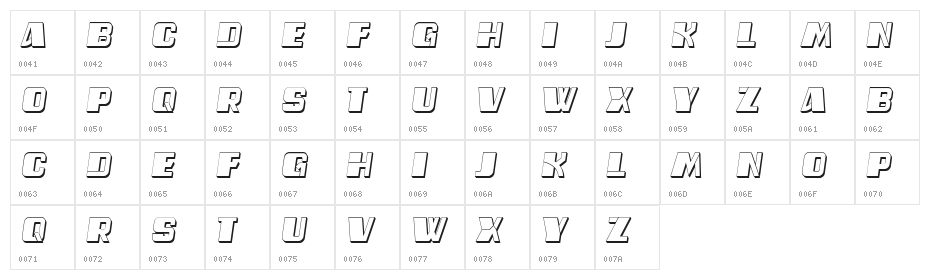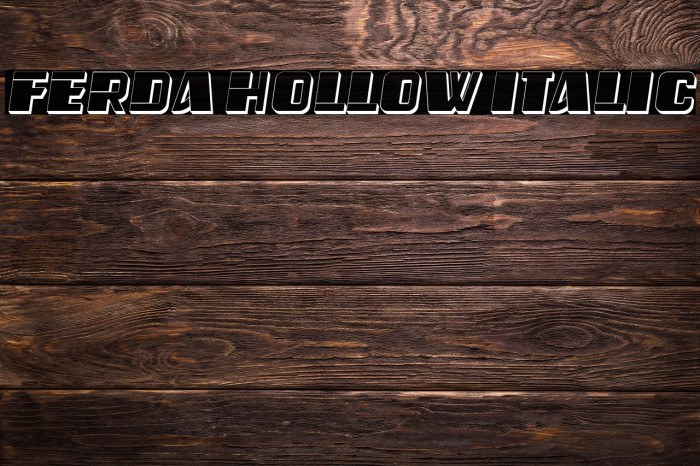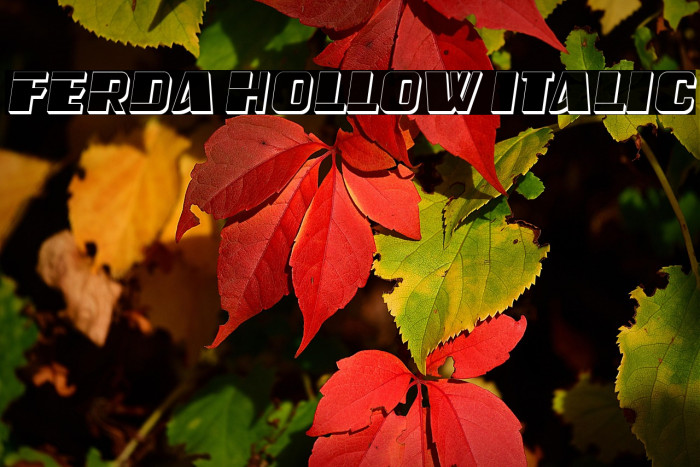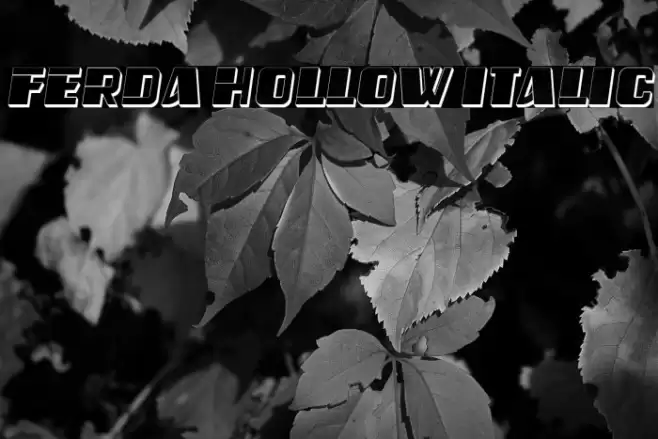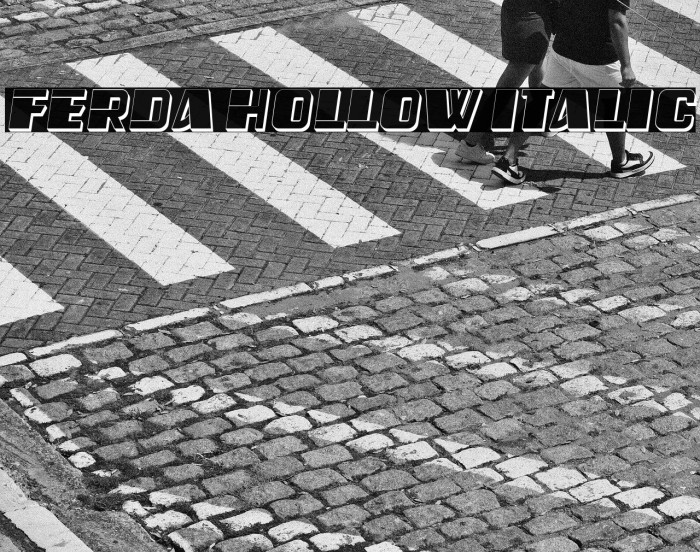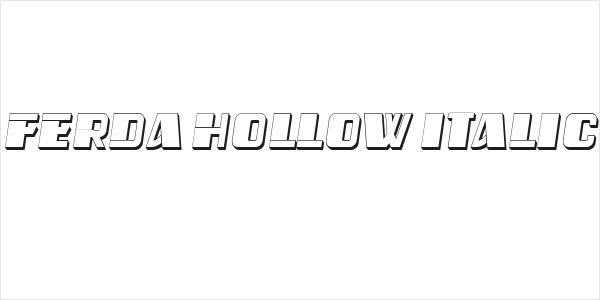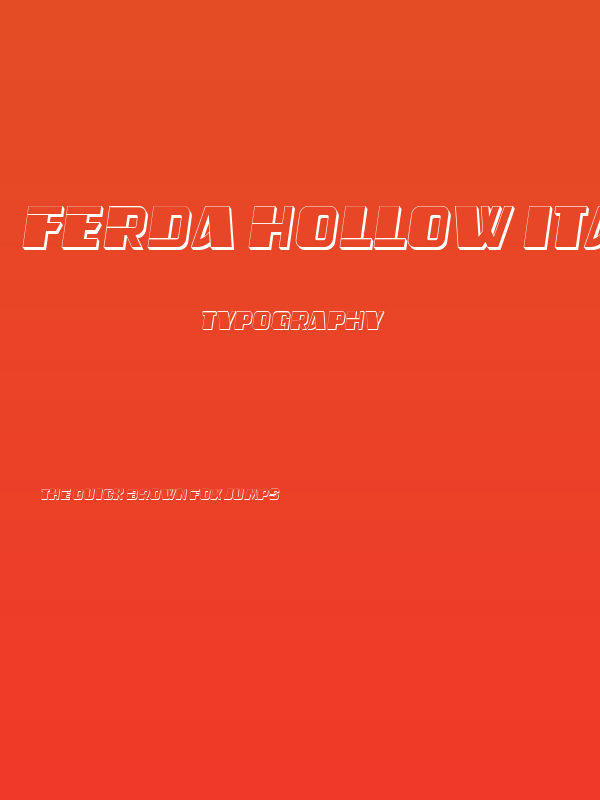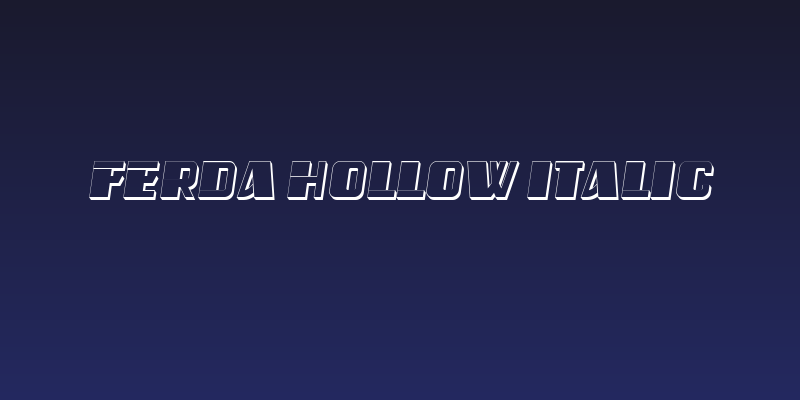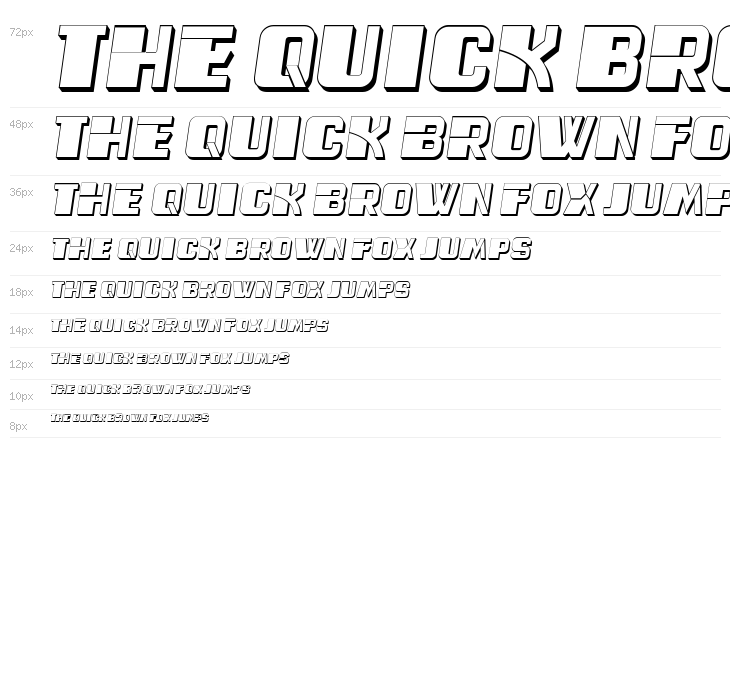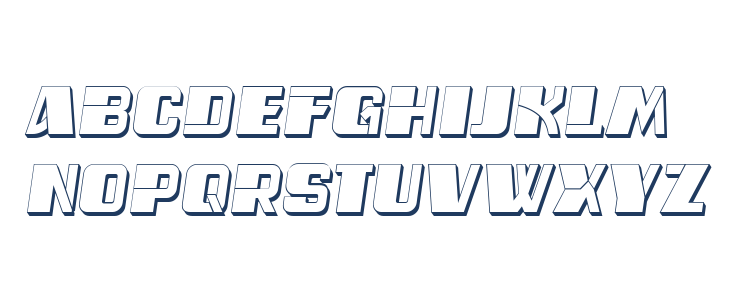
Ferda Hollow Italic Font
Ferda Hollow Italic Description
This font features a bold, hollow design with a distinct italic slant, giving it a dynamic and modern appearance. The characters are outlined, creating a striking visual effect that is both eye-catching and stylish. The uppercase letters are uniform in height, while the lowercase letters maintain a consistent style, enhancing readability. The numbers and special characters follow the same design principles, ensuring a cohesive look across all text elements. The font's geometric structure and clean lines make it suitable for various design applications, from digital media to print.